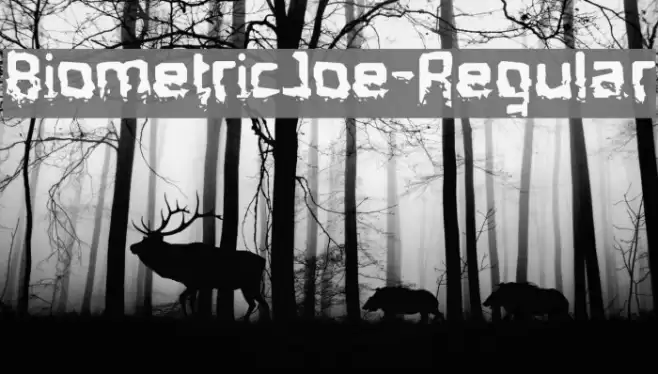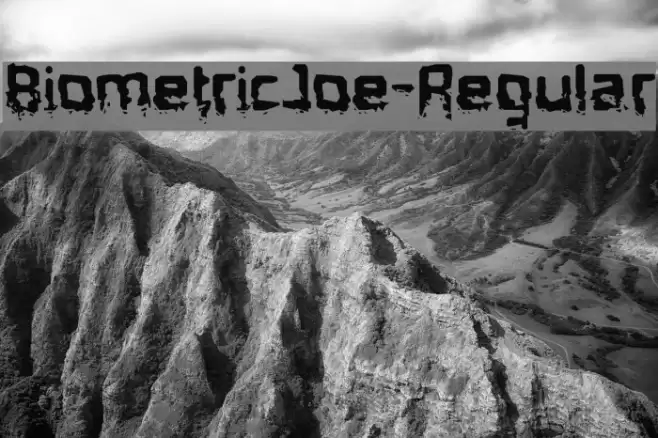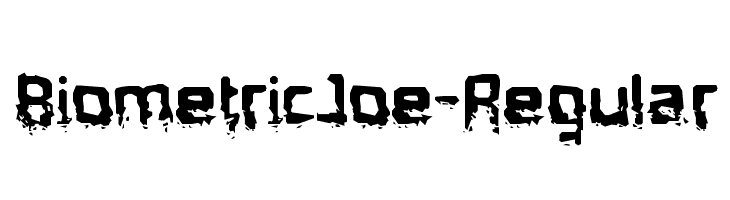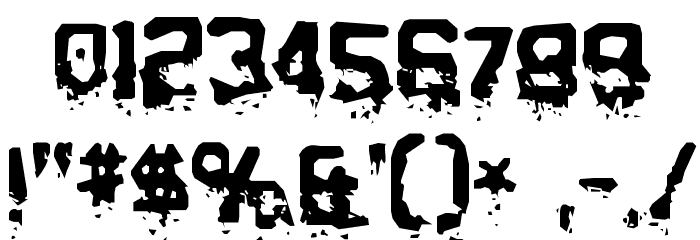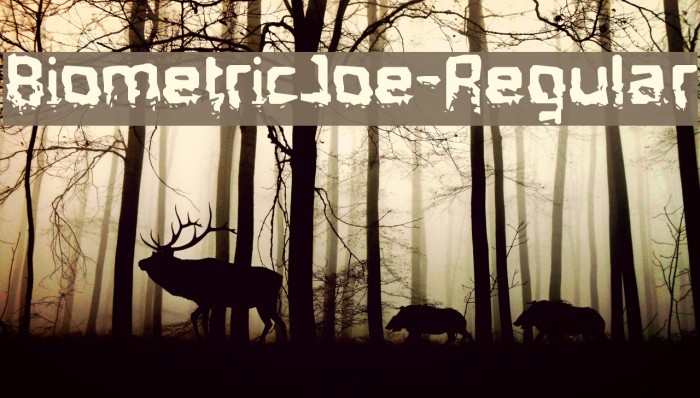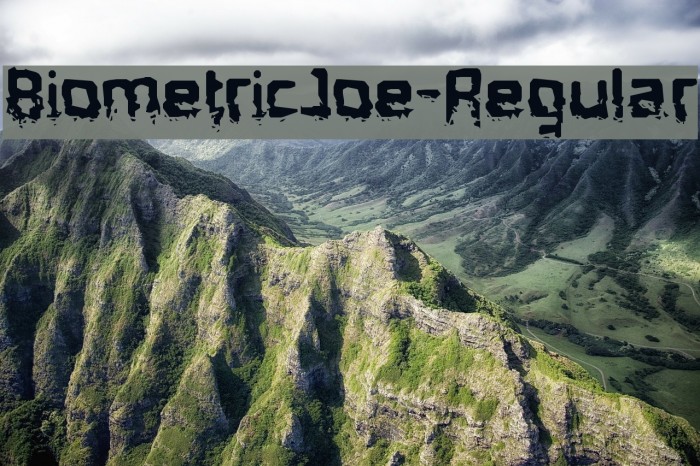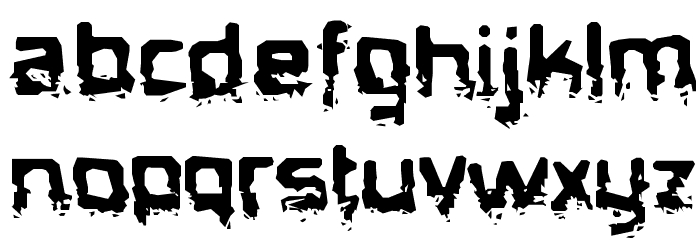
BiometricJoe-Regular Font
BiometricJoe-Regular Description
This font features a rugged, distressed appearance that gives it a unique, edgy look. The characters are bold and heavily textured, with irregular edges that create a sense of movement and energy. The uppercase and lowercase letters maintain a consistent style, with the uppercase being slightly more pronounced. Numbers and special characters follow the same design, ensuring uniformity across the font. The overall aesthetic is reminiscent of graffiti or urban art, making it stand out in any design project.
A bold, distressed font with an edgy, graffiti-like appearance from Uncategorized fonts.
- Proposed Projects: Ideal for street art-inspired designs, music album covers, posters, and branding for edgy or alternative brands.
- Overall Style: Urban, Edgy, Distressed